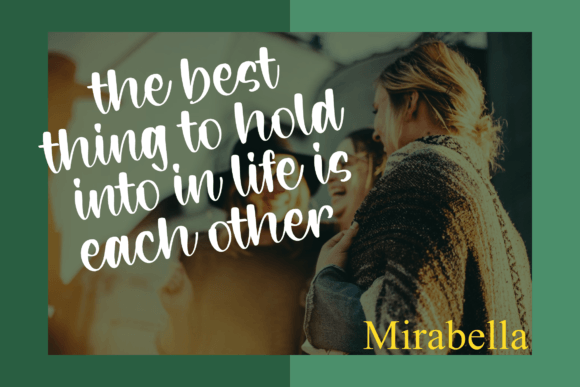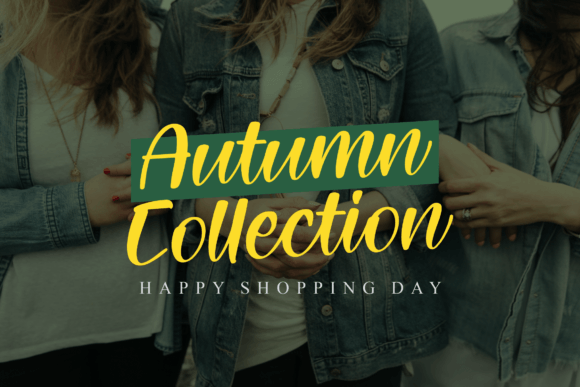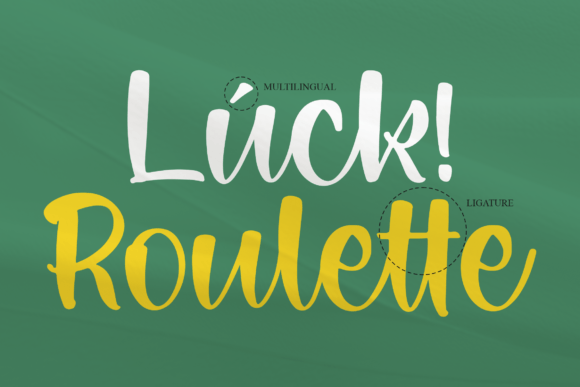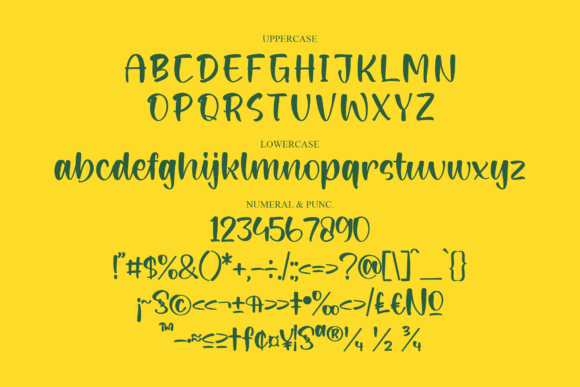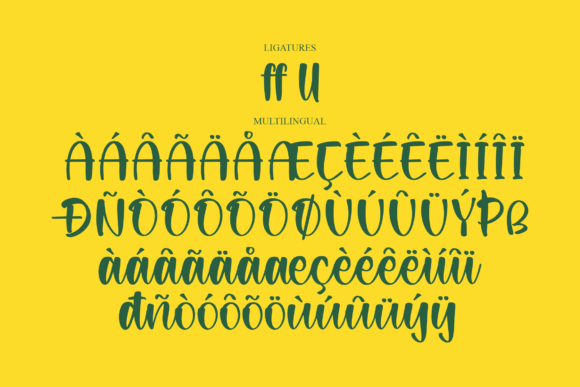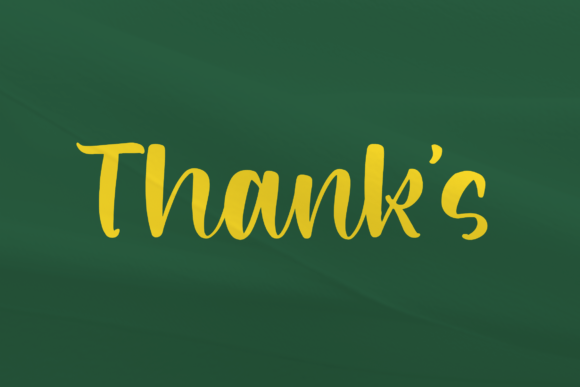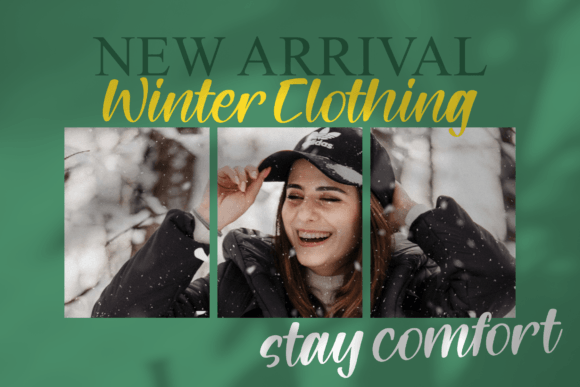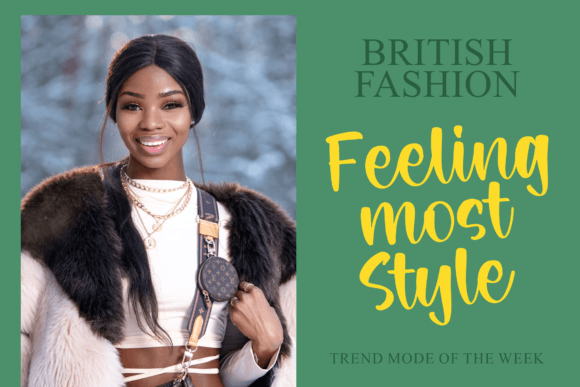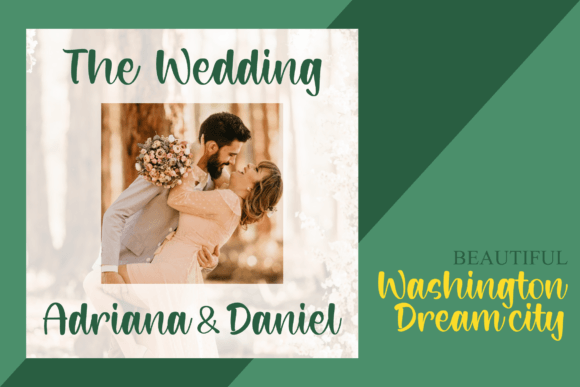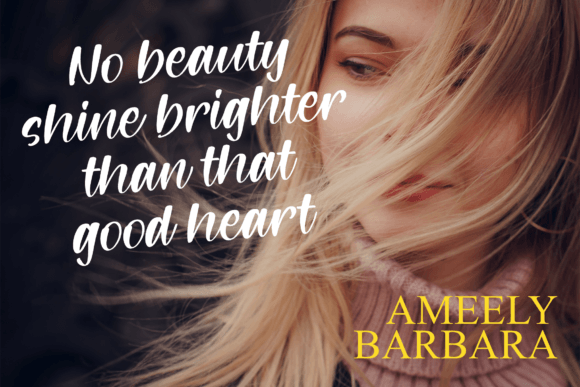
Dream Roulette Font
About Dream Roulette Font
Introducing Dream Roulette, a modern handwritten script font designed to bring a natural, stylish, and personalized touch to your projects. This versatile typeface is perfect for a wide range of extraordinary endeavors, including wedding invitations, thank-you cards, quotes, greeting cards, logos, business cards, and any other design that benefits from a customized and handwritten feel.
Dream Roulette’s modern handwritten script style adds a genuine and contemporary touch to your text. Its versatility allows it to seamlessly adapt to different design contexts, making it a lovely choice for a variety of projects.
For wedding invitations, Dream Roulette imparts a romantic and trendy vibe, enhancing the elegance of your invitations with a touch of personalization. The font’s suitability extends to thank-you cards, where it adds a stylish and expressive feel to your messages of gratitude.
In quotes, greeting cards, logos, and business cards, Dream Roulette’s adaptable style shines through, contributing to a distinctive and memorable visual identity. Its customized touch elevates your designs, creating a lasting impact with its modern and handwritten charm.
Dream Roulette isn’t just a font; it’s a creative tool that enhances your projects with its natural and stylish script. Download Dream Roulette now to infuse a personalized and contemporary feel into your designs. With its versatility and modern charm, this font becomes the perfect choice for projects that require a handwritten touch and a touch of sophistication.